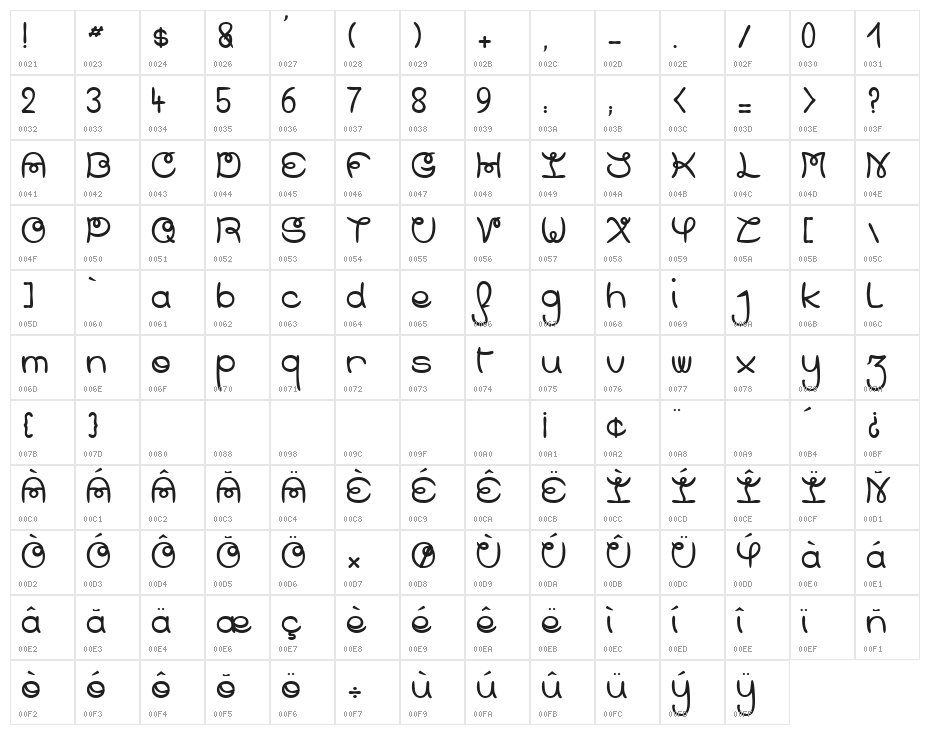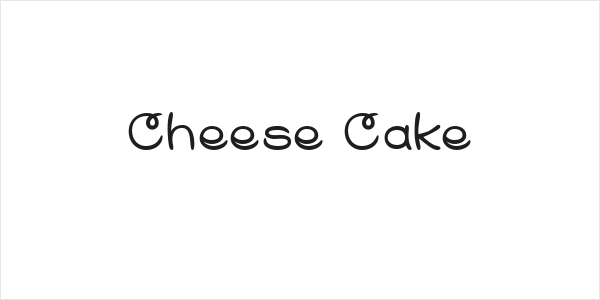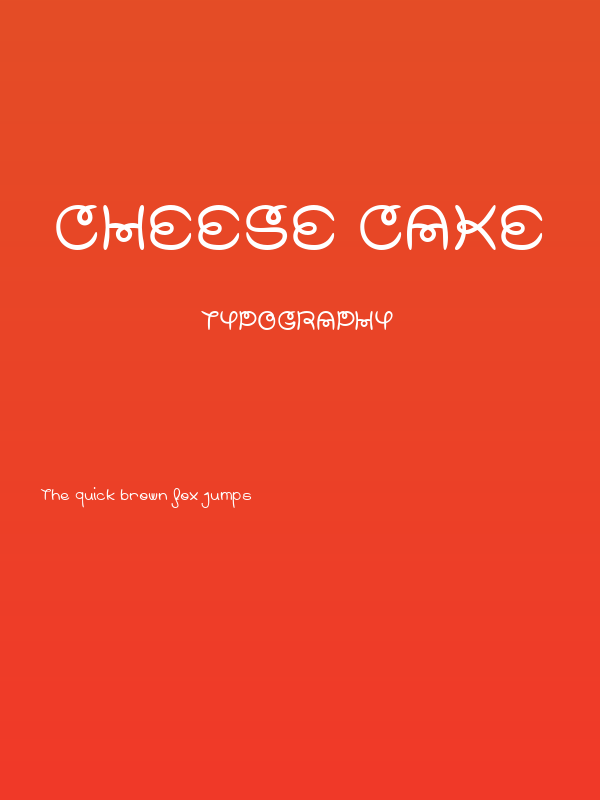
Cheese Cake Font
| Caz de utilizare | Headlines, Logos, Informal Text |
| Proiecte propuse | Ideal for children's books, greeting cards, playful branding, and casual invitations. |
Cheese Cake